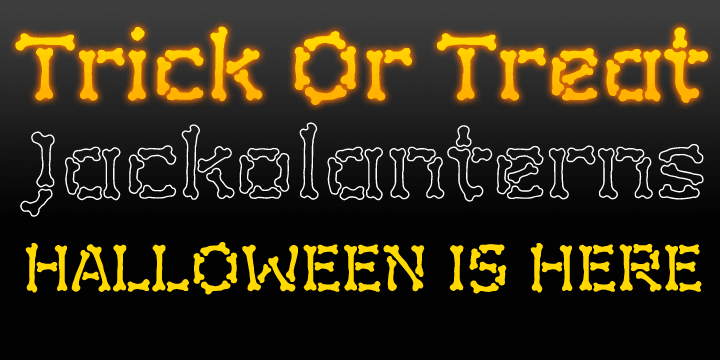
• Calcium HMK
Calcium HMK is a bone-tingling font designed by the lettering artists at Hallmark. It is a funny display font with character shapes made from bones.
It is great for use at Halloween and other occasions.